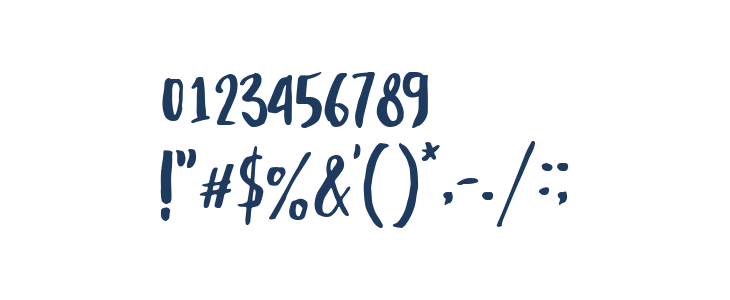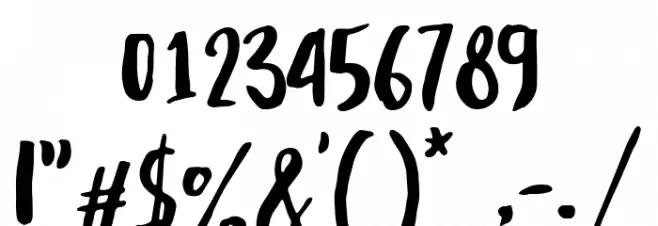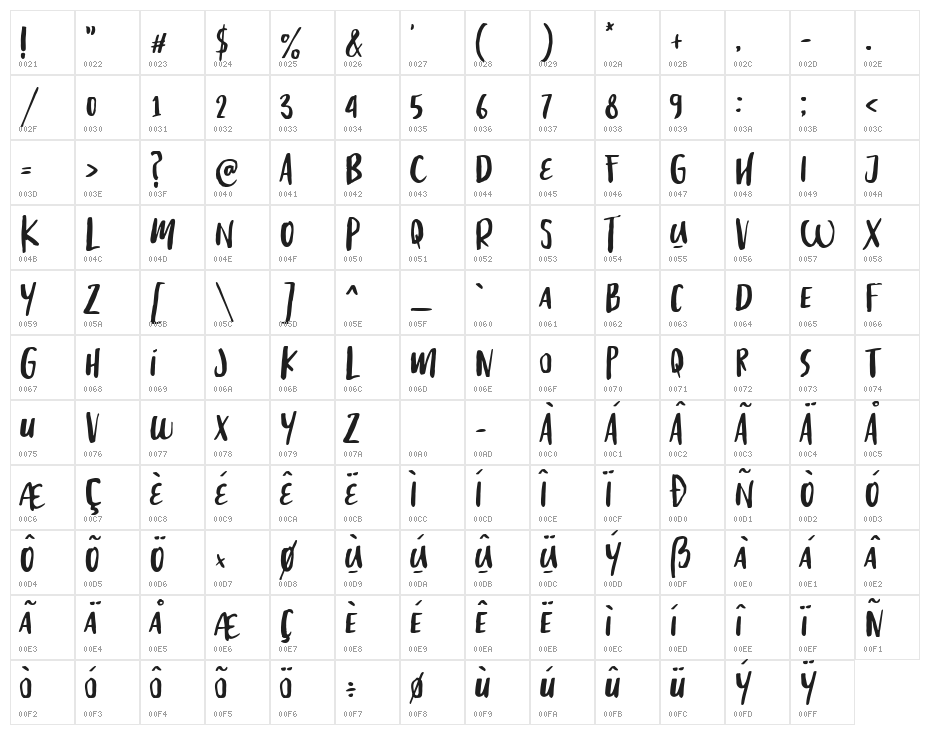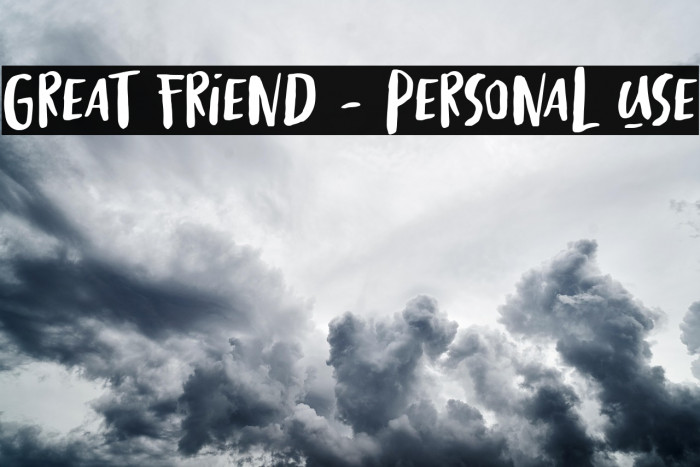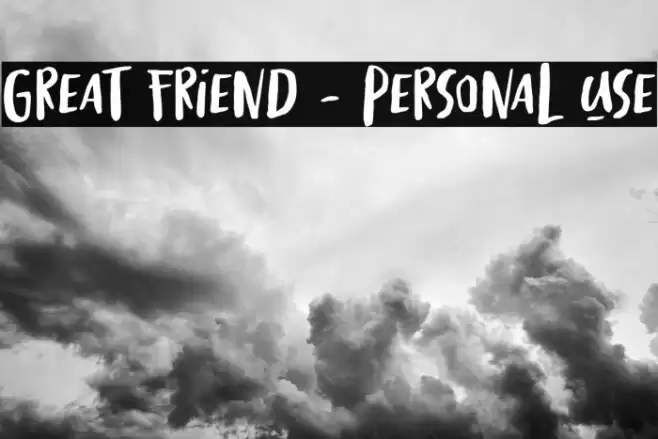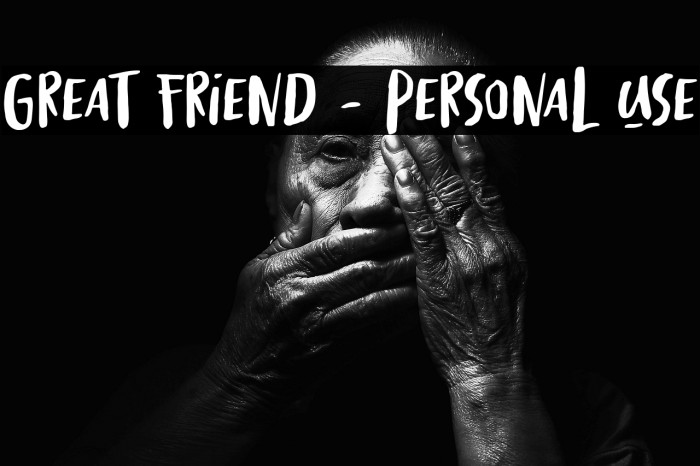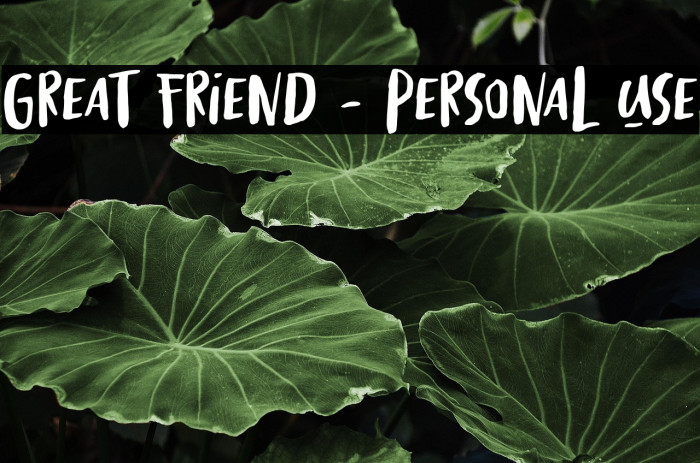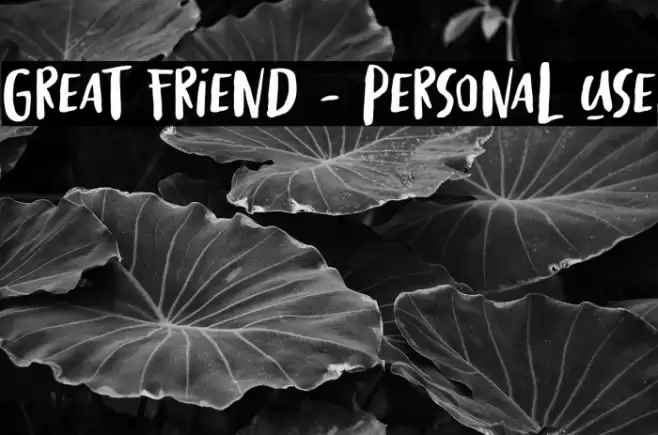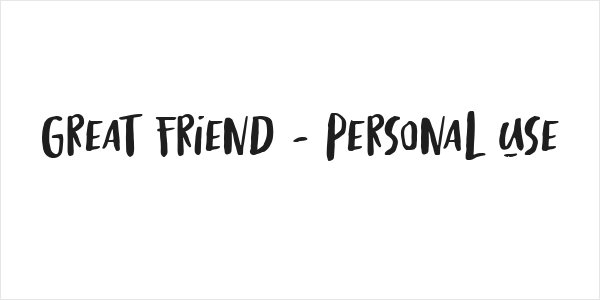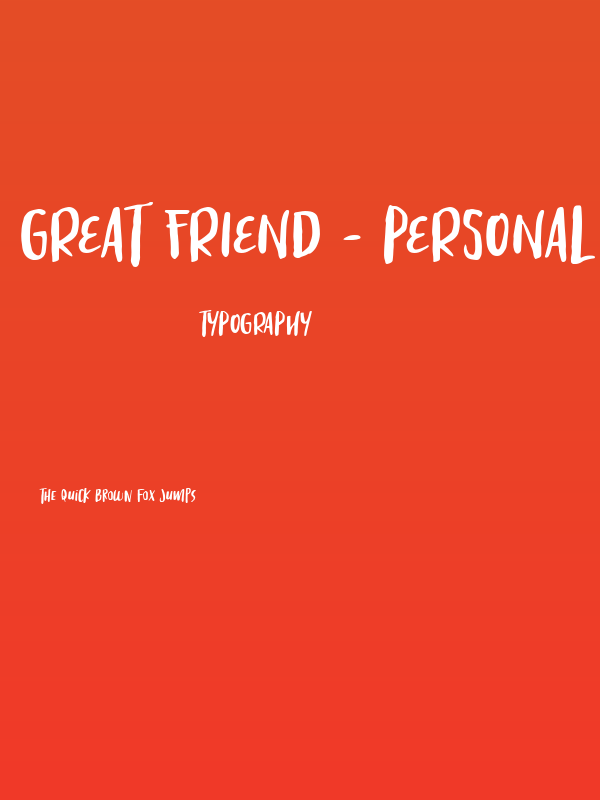
Great Friend - Personal Use Font
Great Friend - Personal Use Description
This font features a bold, handwritten style with a playful and energetic vibe. The letters are slightly irregular, giving it a casual and friendly appearance. The strokes are thick and expressive, with a dynamic flow that suggests movement and spontaneity. The uppercase and lowercase letters maintain a consistent style, with rounded edges and a slightly slanted orientation. Numbers and special characters follow the same design principles, ensuring a cohesive look across all glyphs. This font is ideal for projects that require a personal touch, such as greeting cards, invitations, or social media graphics.